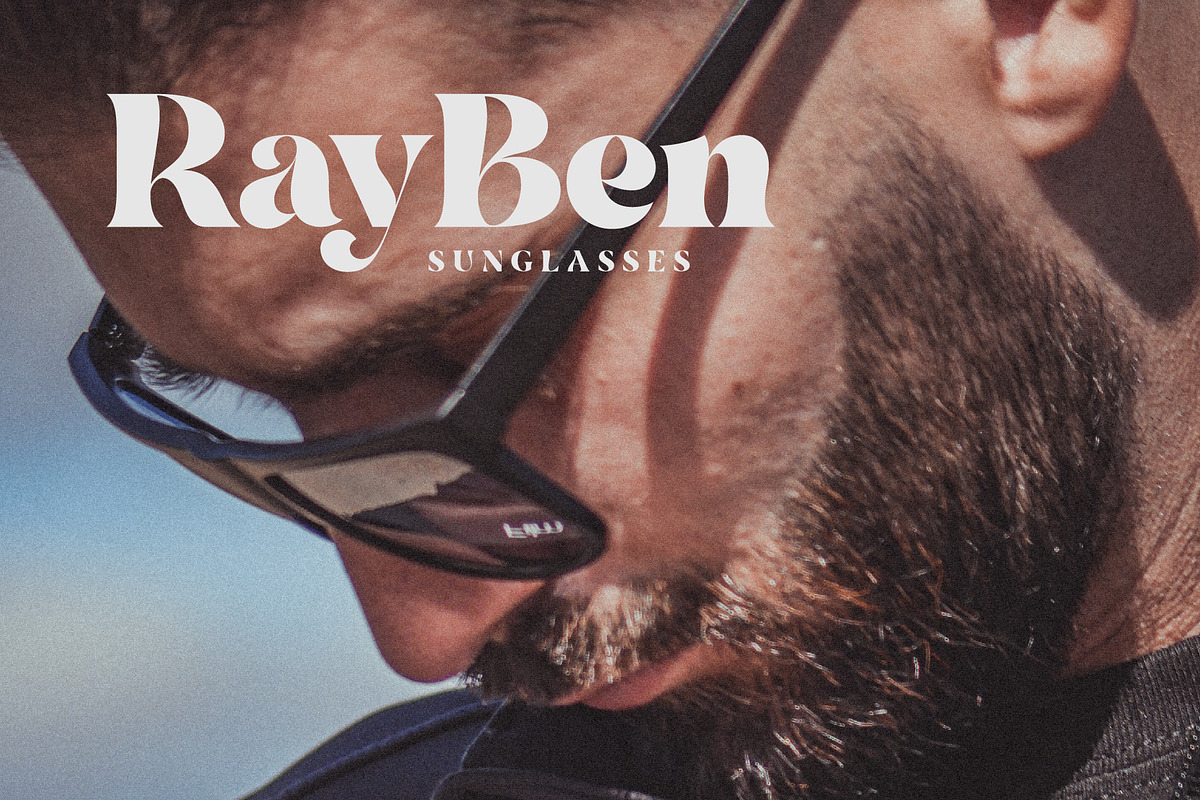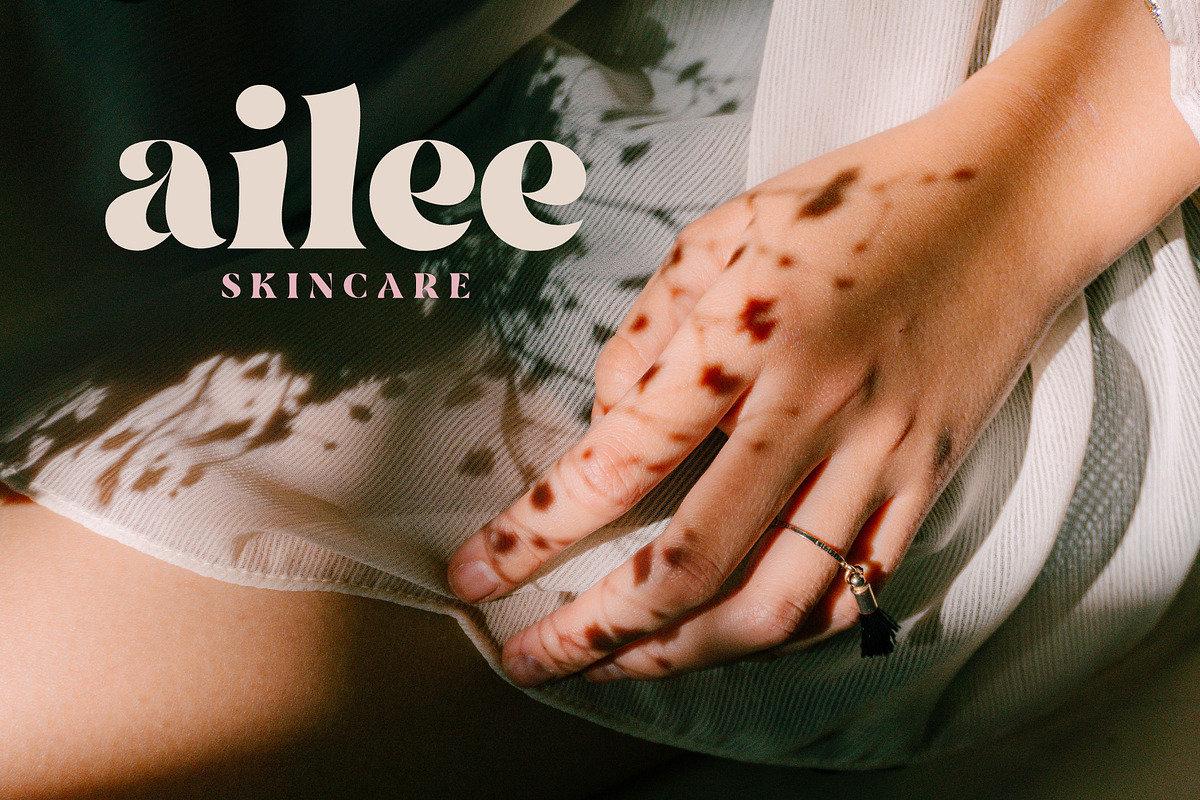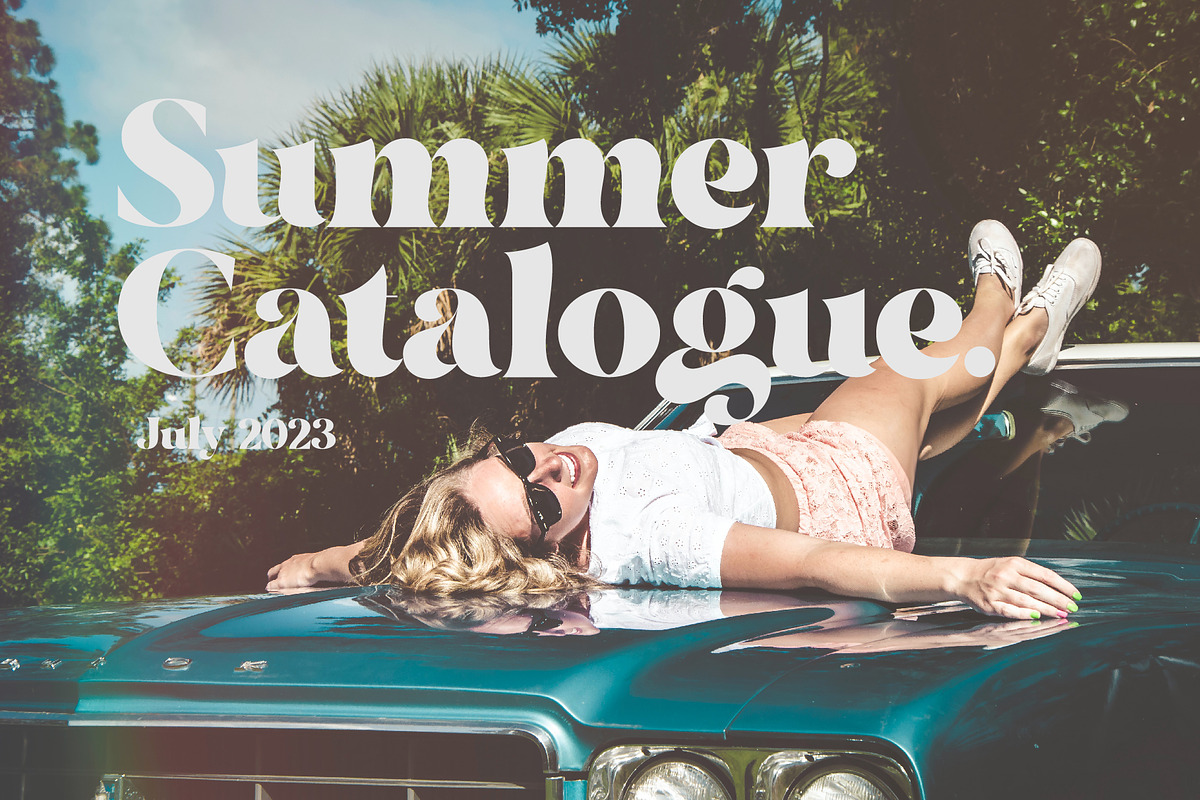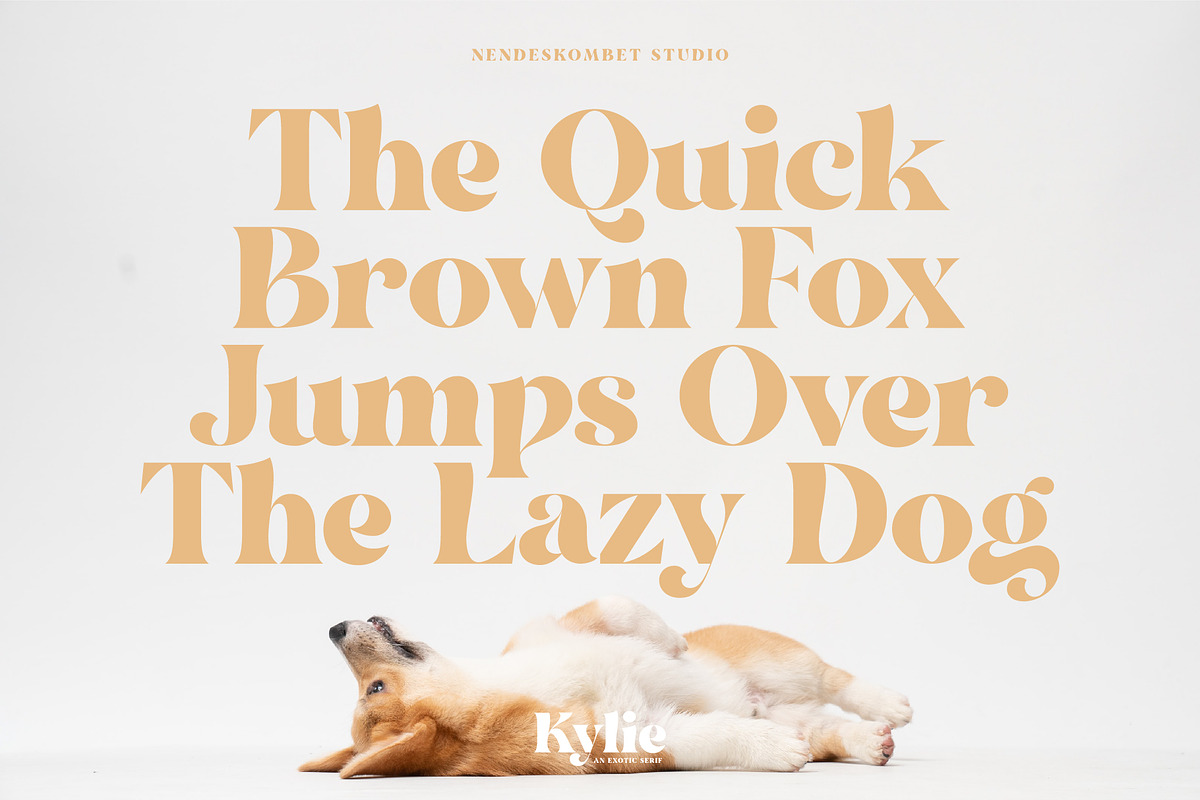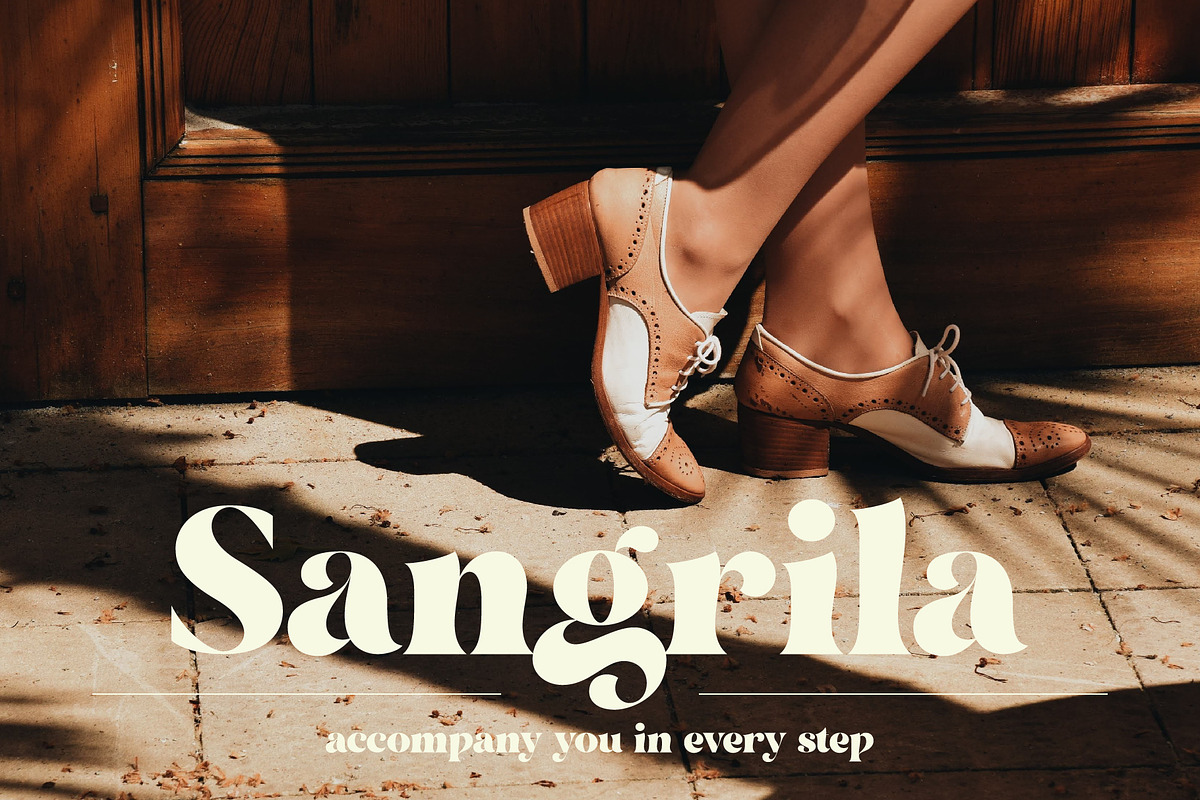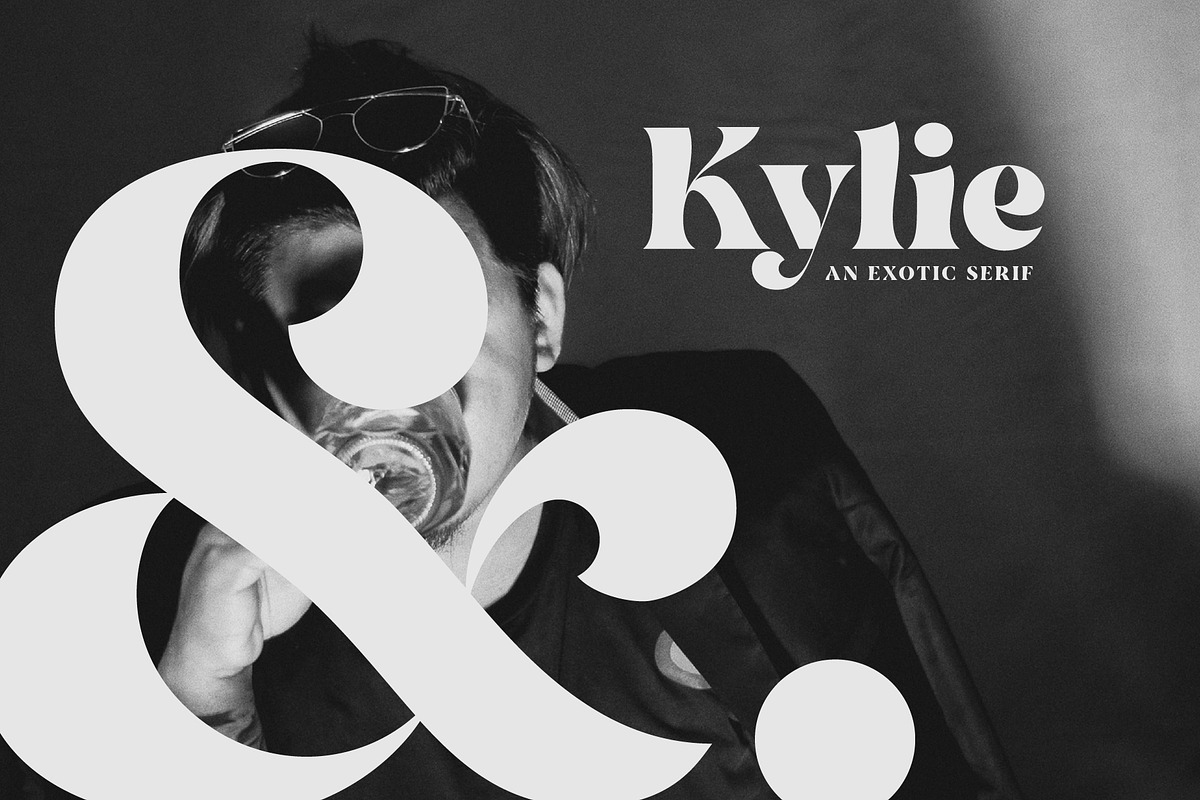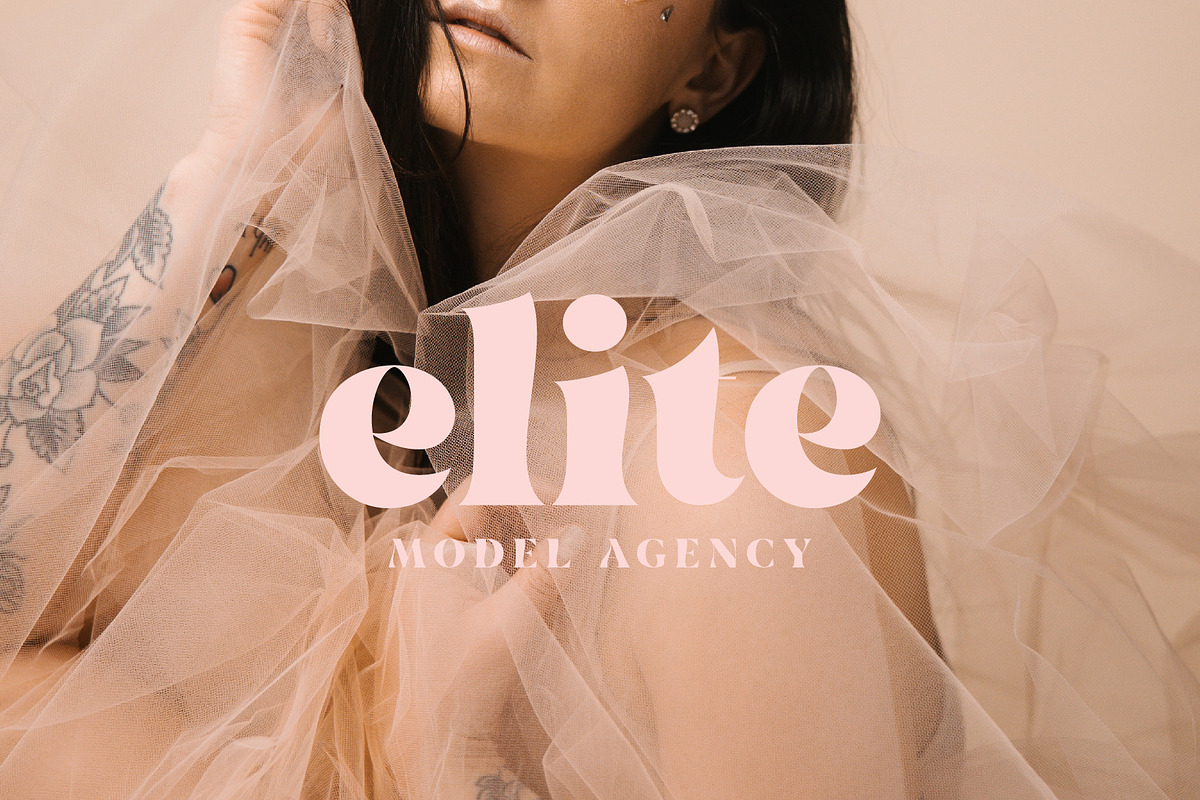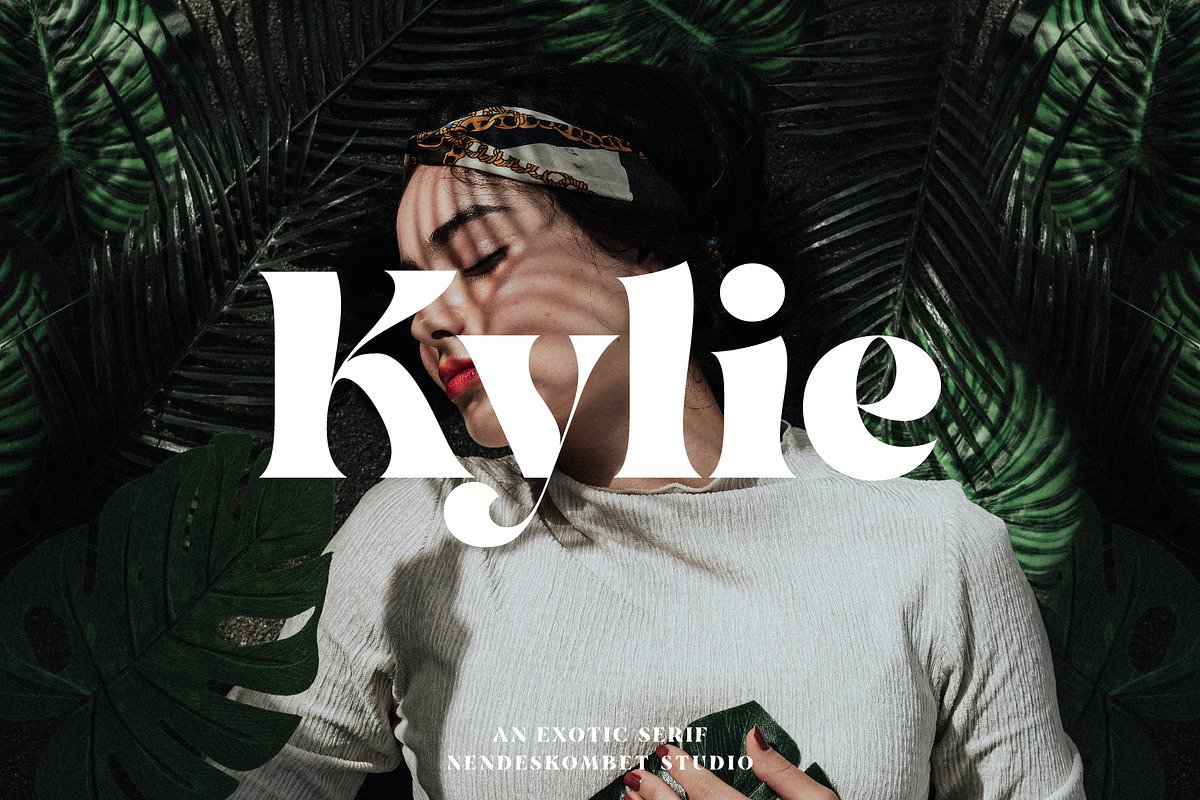
Kylie - Exotic Serif
Kylie an Exotic Serif by NendesKombet Studio
Designed to reflect an exotic nature, creating a sense of natural softness with sexy curves in each letter. Soft but clear concept will make this font a good communicator.
- Exotic Uppercase and Lowercase Letters